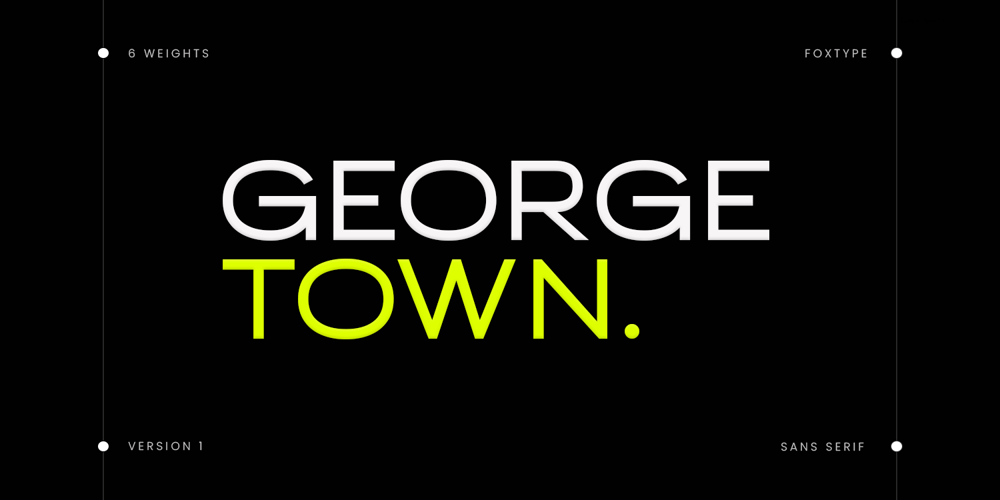
George Town Font Family was designed by Evin Tony and published by FoxType. George Town contains 6 styles and family package options. Introducing George Town new generation Typeface with 6 Weights. George Town Typeface created with the vision of to attract the audience to your brand . The finest details of this typeface are methodically and mathematically created. George Town is created with all the tasks of a corporate font and also for the usage in a variety of projects, including branding, logos, titles, headlines, servers, screens, display, digital ads, and everything else.We are putting a lot of effort on this font as a long-term project. The Typeface includes Six Weights. Thin, ExtraLight, Light, Regular, Medium, and SemiBoldFeatures: Numerals, extended punctuation & Basic Symbols(200+ Glyphs). Expert kerning and quality crafting. Uppercase Letters & Lowercase Letters 24×7 Support Thank you for taking the time to look into the font.